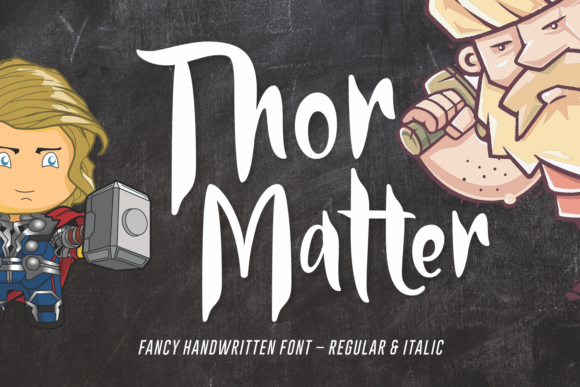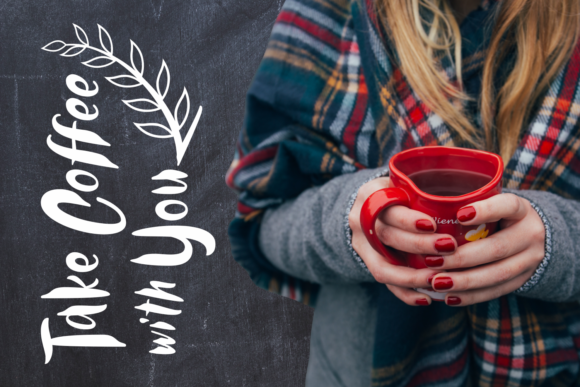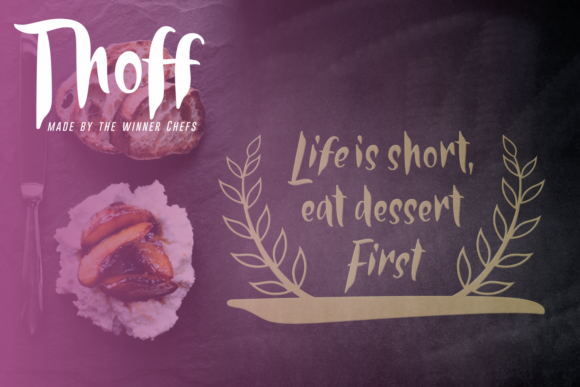
Thor Matter Font
About Thor Matter Font
The Thor Matter is a striking handwritten font. It has an unique and striking style which will make any design stand out!
Included are a regular and Italic version.